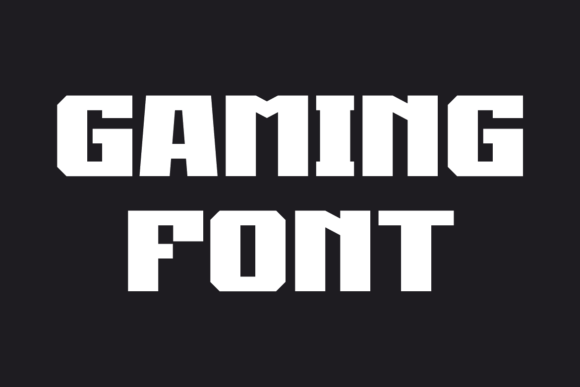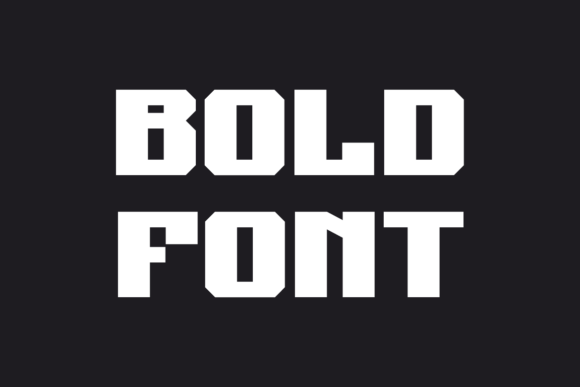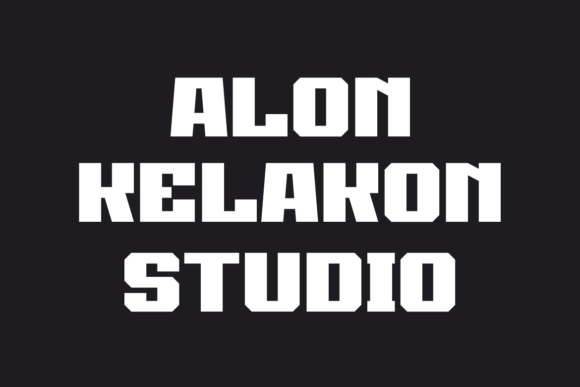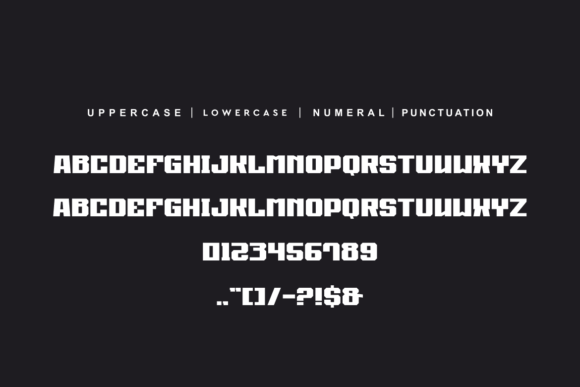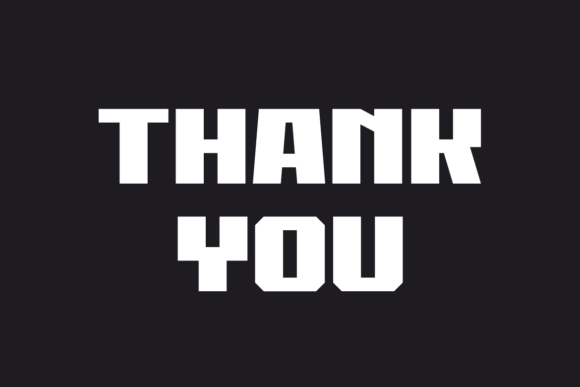
Introduction to Sinergy Support Font
You know that feeling when you’re working on a creative project and the perfect font just slips away from you? It’s as if the entire design is missing that one crucial piece. But what if I told you that’s a thing of the past? Say hello to the Sinergy Support Font, a game-changing addition to any designer’s library.
This bold and assertive sans serif font is more than just a pretty face – it’s a powerful design resource that can elevate any creation. With its high quality and versatile design, the Sinergy Support Font is the perfect companion for designers looking to add a touch of sophistication to their work.
Key Features of Sinergy Support Font
- High-quality, professional font designed specifically for creative projects, making it an ideal design resource.
- Unique, modern design that adds a touch of sophistication to any creative project, making it a valuable design resource.
Honest Review: Sinergy Support Font
As a designer, I’m always on the lookout for high-quality design resources to elevate my creative projects. Recently, I came across the Sinergy Support Font, and I was excited to give it a try.
The Sinergy Support Font is a fantastic addition to any design toolkit. ✨ One of the standout features is its versatility – it’s perfect for a wide range of design applications, from logos and branding to digital displays and print materials. The font’s clean, modern design makes it easy to read and visually appealing.
- High-quality design: The Sinergy Support Font is well-designed and visually appealing.
Overall, I’m impressed with the Sinergy Support Font. It’s a high-quality design resource that’s perfect for a wide range of creative projects. With its clean design, transparent background, and free download, it’s an excellent addition to any designer’s toolkit.